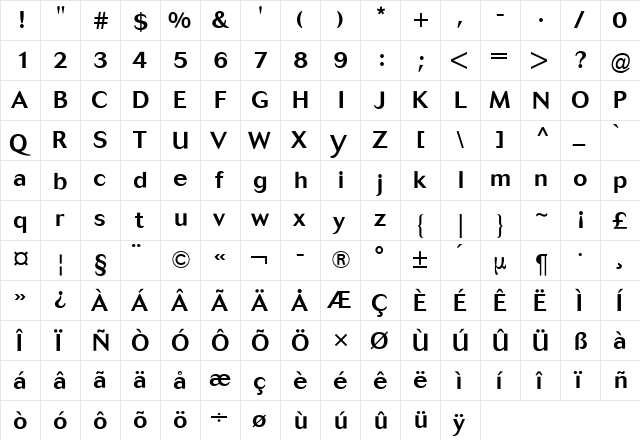
Cosmos BQ Medium Font Preview
Cosmos BQ Medium
Cosmos BQ Medium Font Details
Design Context for Cosmos BQ Typeface
Cosmos BQ takes a measured approach to typography — its balanced proportions and neutral character make it a reliable workhorse for both digital and print work.